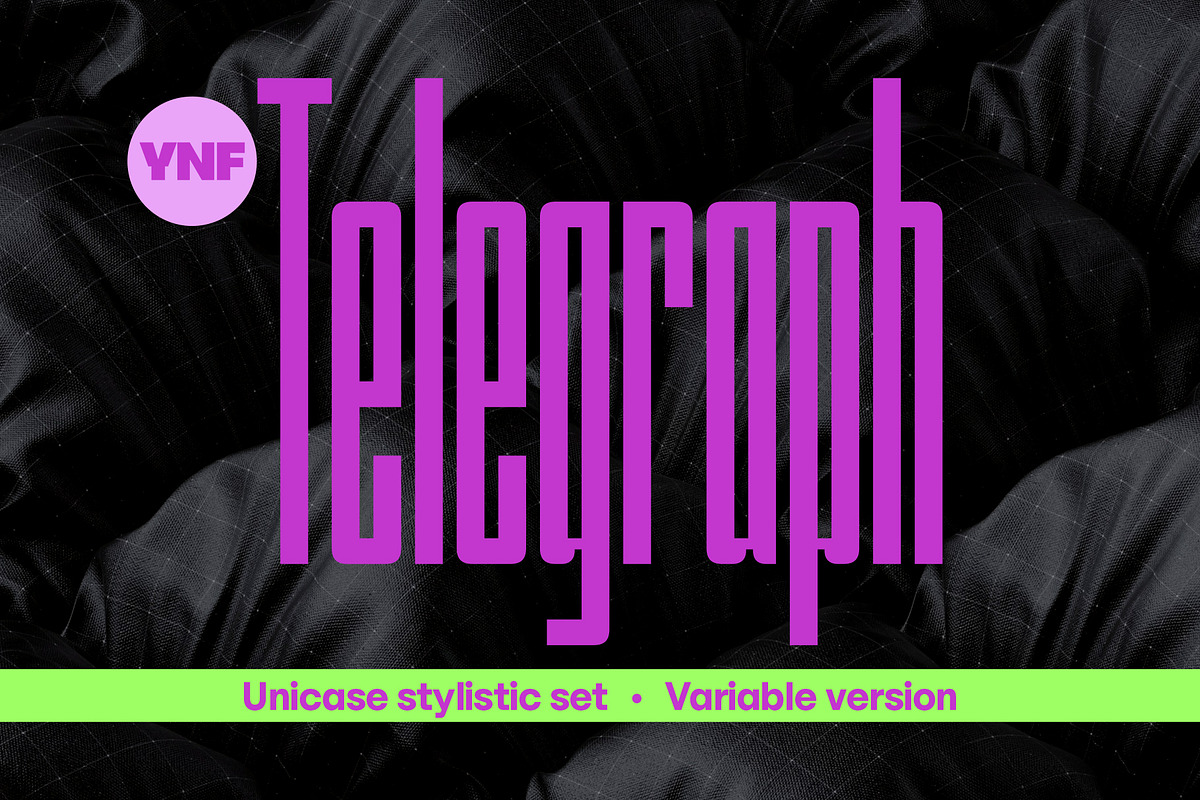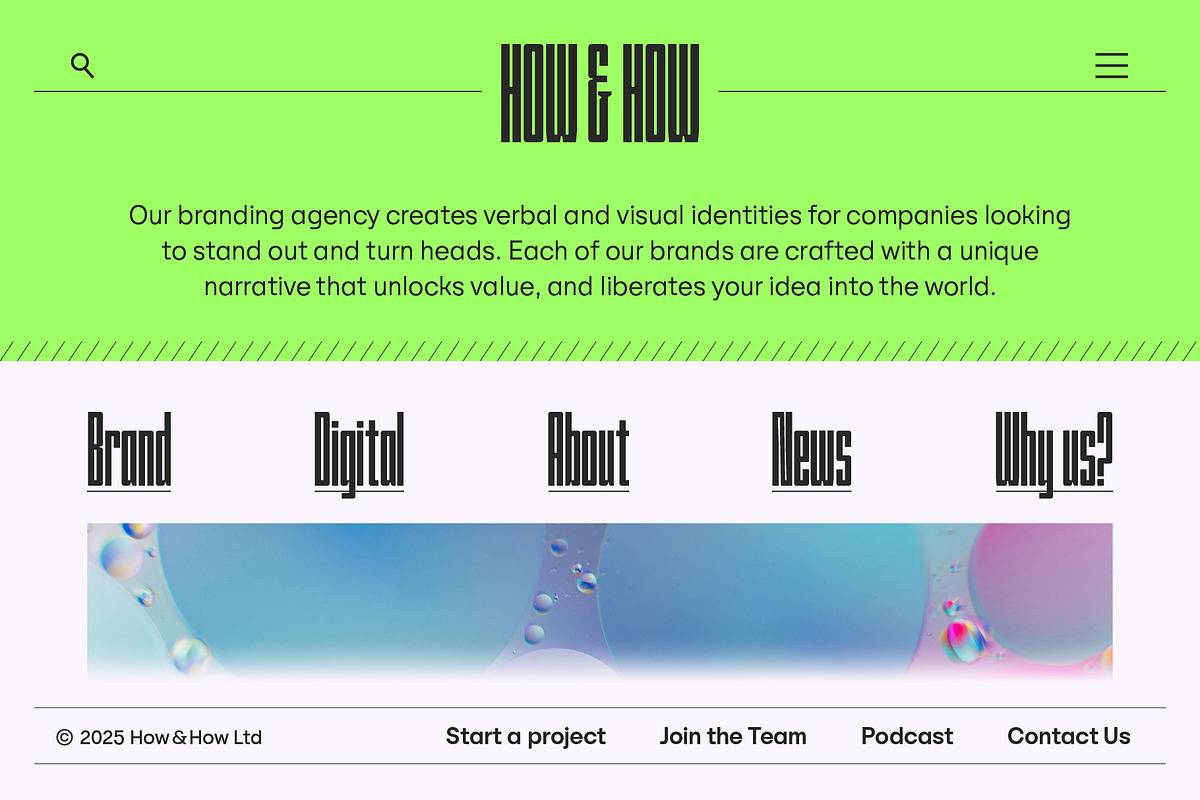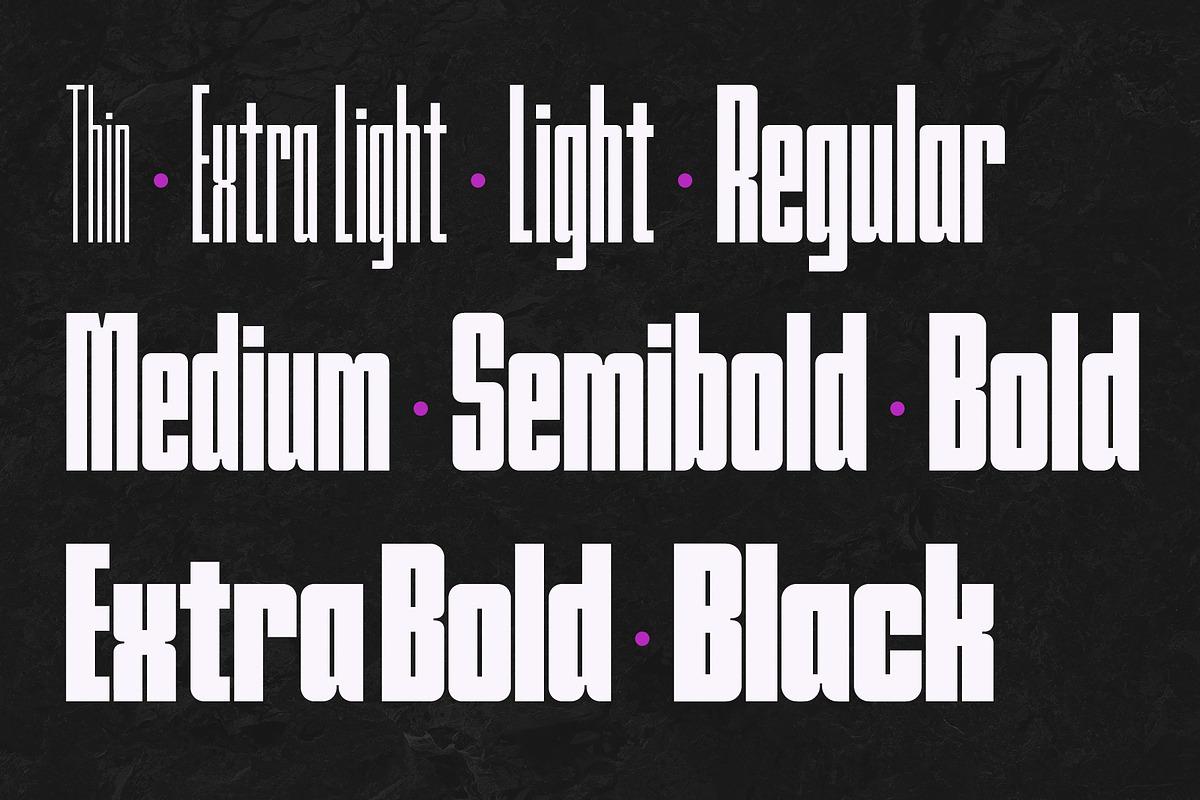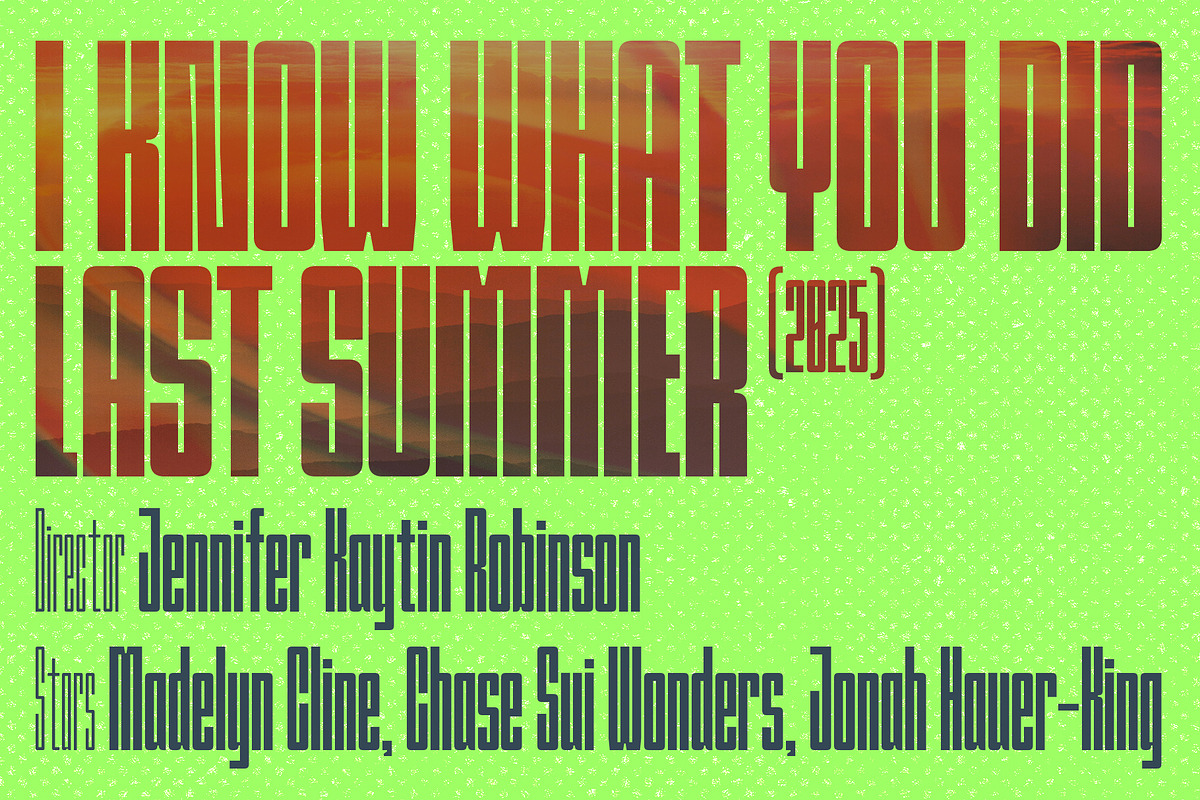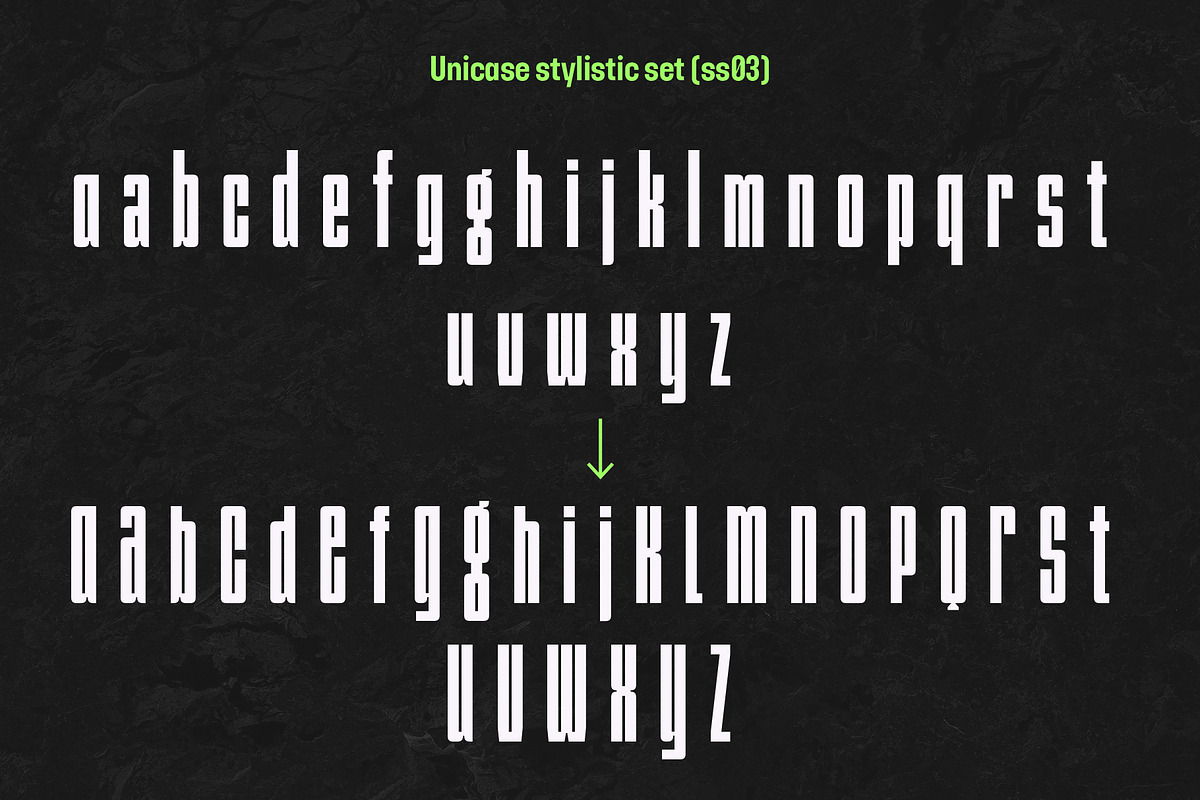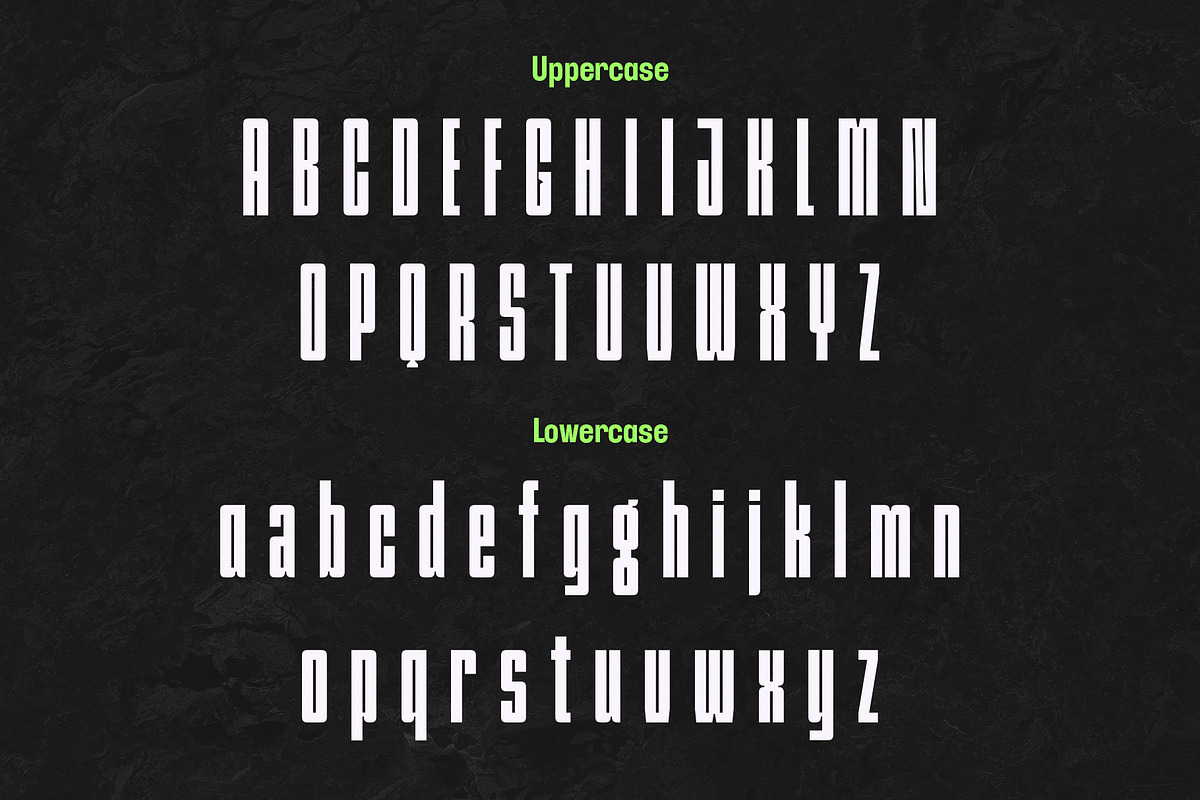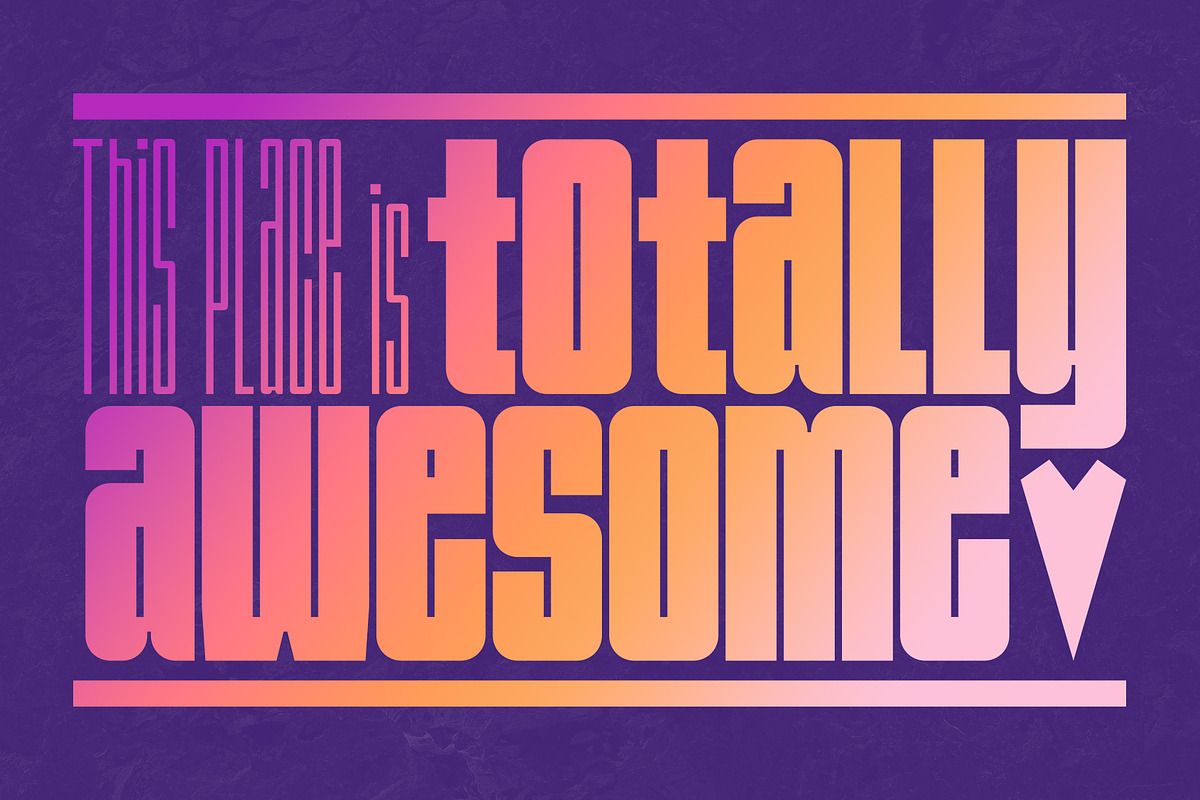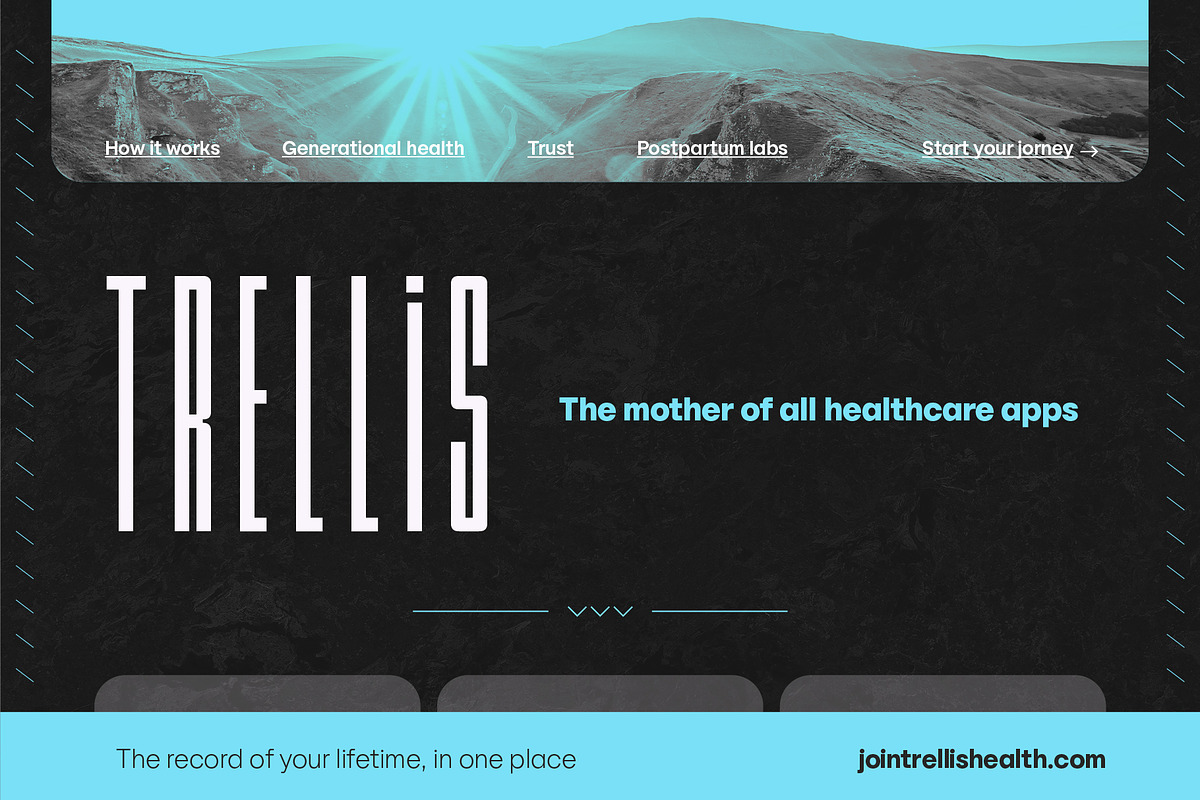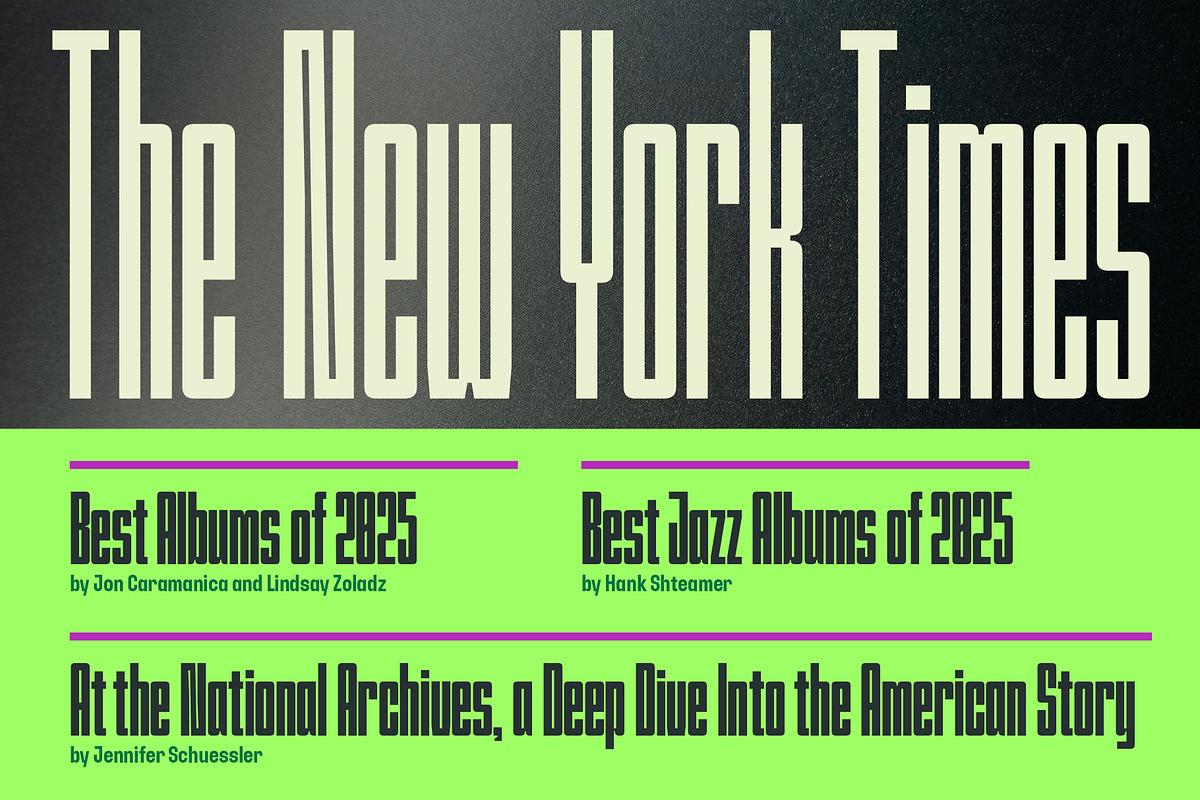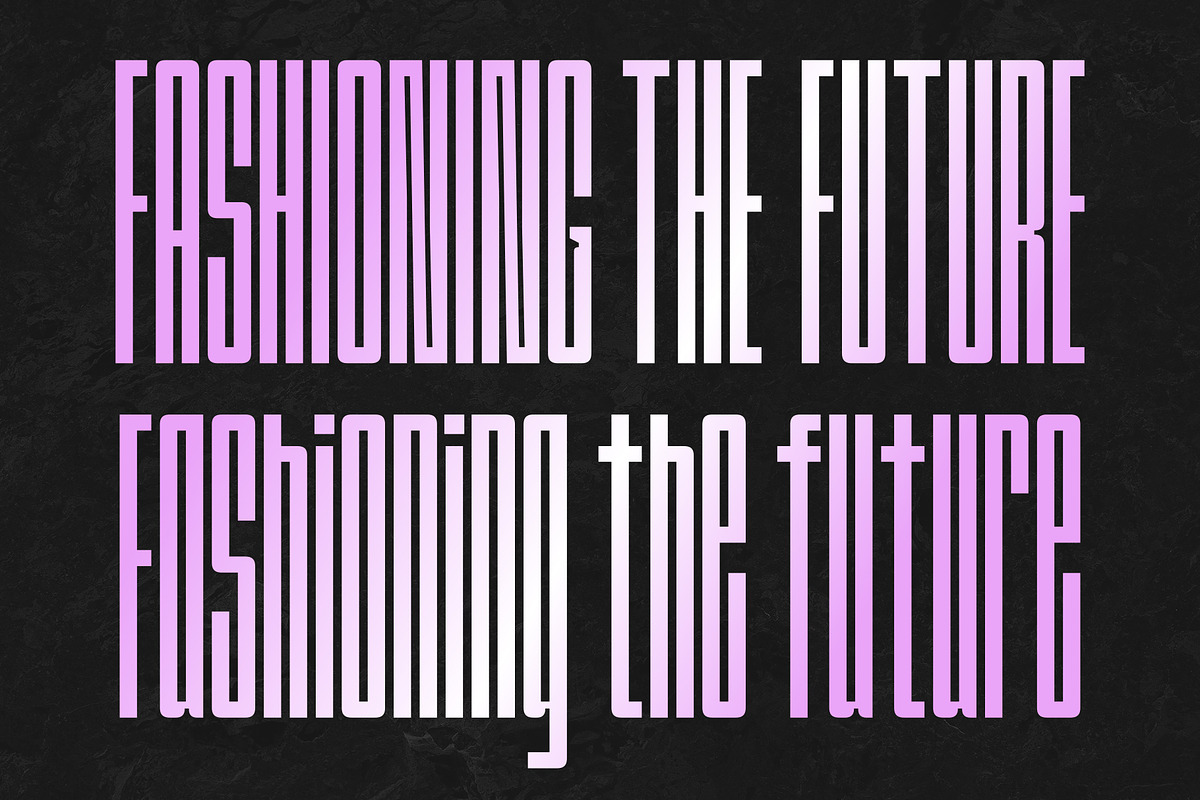
YNF Telegraph | Unicase sans serif
Say hello to YNF Telegraph! Condensed sans serif with strong compact letters will be a good friend for branding, posters, package design. It comes with 9 weights and a variable version. And special unique unicase set allows you to make the text even more interesting.
- Unique unicase stylistic set! (see the presentation)
- Uppercase and lowercase letters
- Punctuation marks and other essential glyphs